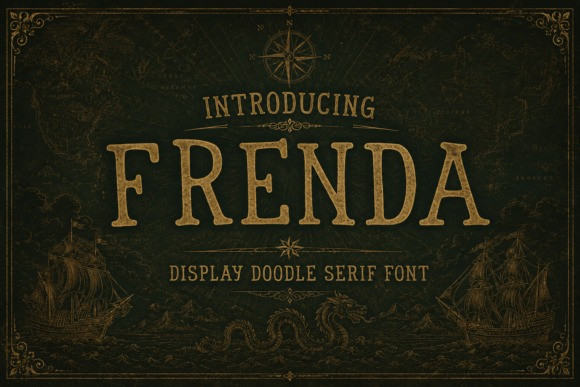
Frenda Font
Designer: Aladin
Frenda Font is a unique and expressive serif display font inspired by the charm and authenticity of a real place. Designed with a playful yet refined personality, this typeface blends handcrafted warmth with modern elegance, making it perfect for creatives who want something distinctive and full of character.
With its slightly irregular shapes and organic flow, Frenda captures the beauty of human touch while maintaining excellent readability. It brings a friendly, artistic tone to any project — from branding to social media and everything in between.
Whether you’re designing eye-catching headlines, logos, packaging, or creative visuals, Frenda adds a memorable and stylish voice to your work.